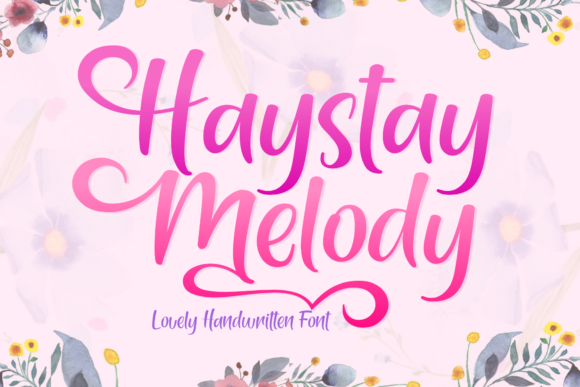
Haystay Melody: A Font That Elevates Your Brand
Running a small business means every detail matters. From the way you package your products to how you present them on social media, consistency and personality play a huge role in how customers see you. A few months ago, I was preparing new labels for my handmade candles and realized that the font I had been using felt generic—like it didn’t quite capture the warmth and creativity I wanted to convey. That’s when I discovered Haystay Melody.
A Font with Personality
Haystay Melody is a handwritten script font with a friendly and approachable vibe. It feels like someone is writing a note by hand, which makes it perfect for businesses that want to feel personal and genuine. The curves and gentle strokes give it a soft, inviting look that’s easy on the eyes. Whether you’re designing product labels, social media graphics, or thank-you cards, this font adds a touch of charm that can make your brand stand out.
How It Transformed My Business
I used Haystay Melody to redesign the labels on my candle jars. Before, the text felt too formal and didn’t match the cozy, handmade aesthetic of my products. After switching to Haystay Melody, the labels looked more inviting and aligned better with the overall brand image. Customers started commenting on how much more welcoming the packaging felt, and I noticed an increase in repeat orders.
The font also worked well with other design elements. I paired it with a clean sans serif font for the product names, creating a nice balance between elegance and friendliness. This helped ensure readability while still keeping the visual style cohesive.
Where to Use Haystay Melody
Haystay Melody is incredibly versatile. Here are some practical uses I’ve found:
- Product Labels: Ideal for packaging, especially for items like candles, skincare products, or handmade goods.
- Business Cards: Adds a personal touch without being too flashy.
- Social Media Graphics: Works well for Instagram posts, Facebook banners, and even TikTok videos.
- Menus: Perfect for cafés or bakeries looking to create a warm and inviting atmosphere.
- Thank-You Cards: Makes handwritten notes feel more heartfelt and personal.
- Logos: Can be used as a primary typeface for logos, especially for creative or lifestyle brands.
- Website Banners: Adds a stylish element to digital content without overwhelming the user.
It’s important to consider readability, especially when using Haystay Melody on small labels or mobile screens. I found that using slightly larger text sizes and ensuring good contrast made the font more legible. For printed materials, I recommend testing the font on actual paper to see how it looks in real life.
Pairing Tips for Better Design
When working with Haystay Melody, pairing it with complementary fonts can enhance the overall design. I’ve found that combining it with a modern sans serif font like Montserrat or a classic serif font like Garamond creates a balanced look. For a more playful feel, pairing it with another script font can add depth and interest.
One of my favorite combinations is using Haystay Melody for headlines and a clean sans serif font for body text. This keeps the design visually engaging while maintaining clarity and professionalism.
What to Look For in the Font
Before using any font commercially, it’s important to check the included styles, file formats, and licensing options. Haystay Melody comes with multiple weights and alternates, making it adaptable for various design needs. It also supports multilingual characters, which is great if you plan to use it internationally.
Additionally, checking for ligatures and special characters can help you achieve a more polished look. These small details can make a big difference in how your designs are perceived.
Why Typography Matters for Small Businesses
Typography isn’t just about making things look pretty—it plays a key role in how customers perceive your brand. A well-chosen font can make your business appear more professional, trustworthy, and memorable. It helps create a consistent visual identity across all platforms, from your website to your packaging.
Haystay Melody has helped me build a stronger connection with my audience. It’s not just a font—it’s a tool that brings personality and warmth to everything I create. Whether you’re running a boutique, a café, or an online shop, finding the right font can make all the difference in how your brand is seen and remembered.